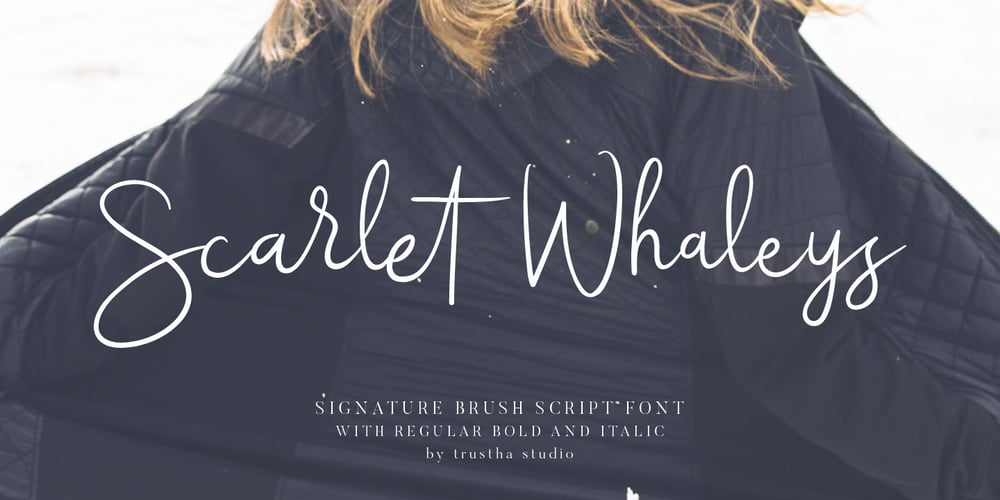
Scarlet Whaleys Font Family was designed by Bagas Ardiatma and published by Trustha. Scarlet Whaleys contains 4 styles and family package options. Scarlet Whaleys is a stunning signature brush script font. Scarlet Whaleys is a practical and beautiful calligraphy font for use in displays, headlines, letterhead, poster, logotype, apparel design, label, website header, fashion design, name tag, quotes, t-shirts, packaging and any more.